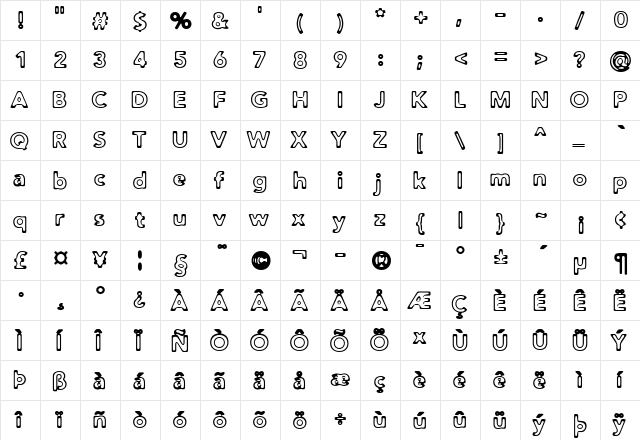
Distro II Toasted Toasted
| Designer | Peter A Designer |
Design Context for Distro II Toasted Typeface
Distro II Toasted offers clean, dependable letterforms without strong stylistic allegiance, making it a practical choice for designers who need flexibility.